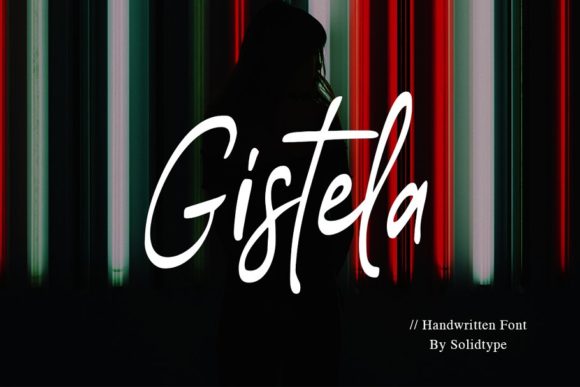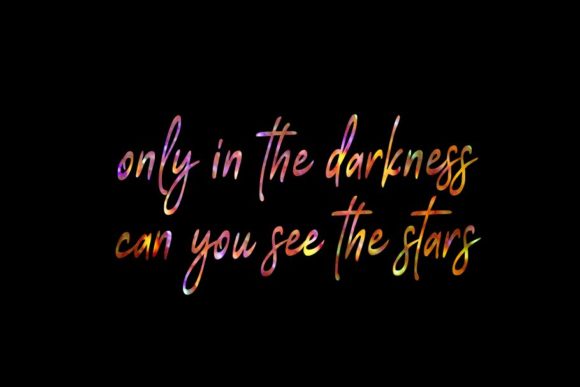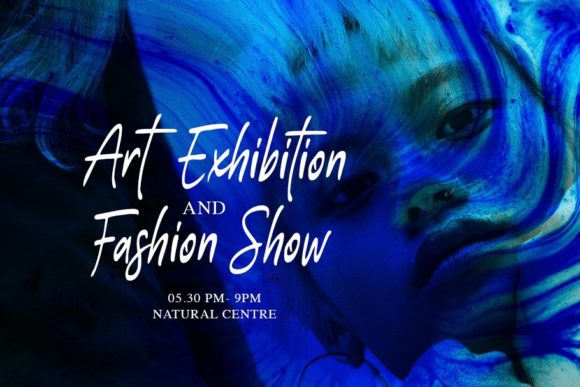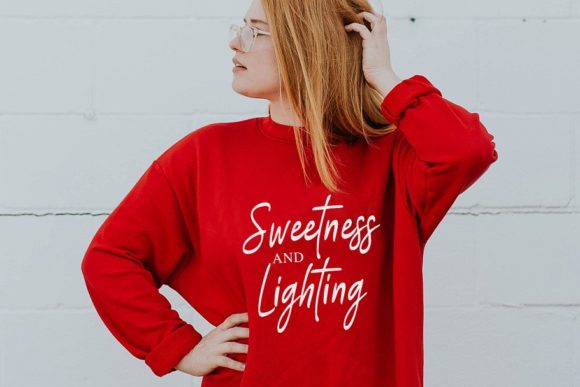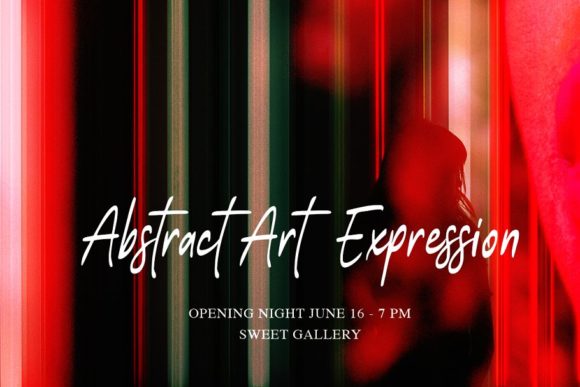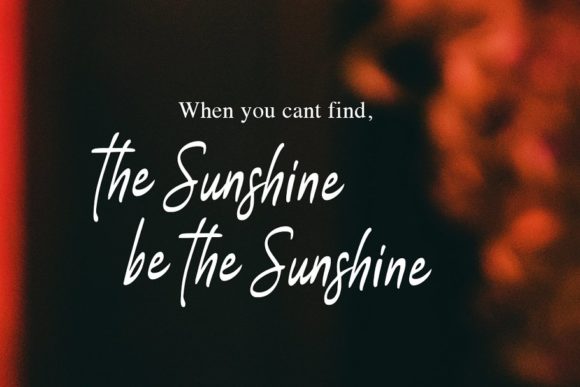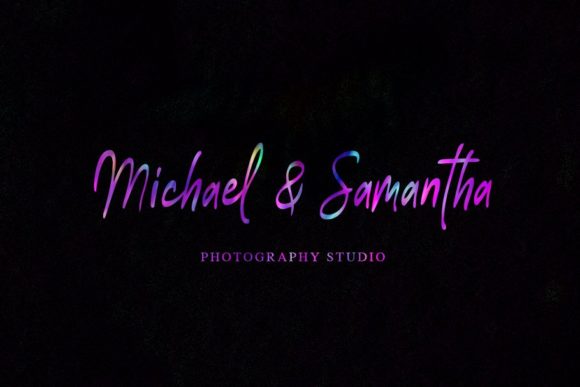
HomeScript FontsGistela Font Script Fonts Gistela Font FacebookXPinterestWhatsApp Gistela Font Poster 2 Gistela Font Poster 3 Gistela Font Poster 4 Gistela Font Poster 5 Gistela Font Poster 6 Gistela Font Poster 7 About Gistela Font Gistela is a handwritten script that radiates authenticity & style. Fall in love with its cute feel! DOWNLOAD NOW People also explored Hendrickson Font Crunchy Font Handmade Notes Font Blasthinga Font Sheptember Font Osyka Font Around Font Misgine Font Xylarion Font 302 0 TagsGistela Font Previous articleVertica FontNext articleAlansky Font LEAVE A REPLY Cancel reply Comment: Please enter your comment! Name:* Please enter your name here Email:* You have entered an incorrect email address! Please enter your email address here Website: Save my name, email, and website in this browser for the next time I comment. Personal Use Free Wildwest Personal Use Free Read more about this font Amellis Path Personal Use Free Read more about this font Gdynia Personal Use Free Read more about this font Winner Personal Use Free Read more about this font BLOG Free Fonts Risk: Why Free Fonts Can Be Dangerous for Designers Free Fonts Risk: Why Free Fonts Can Be Dangerous for Designers Using free fonts is a common practice in web and graphic design. However, the... Best Fonts for T-Shirt Design – Top 2025 Picks Where to Buy American Fonts Online in 2024 Fonts That Capture the Spirit of New York City